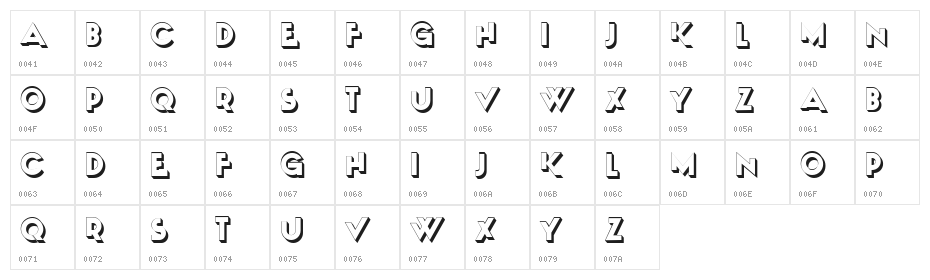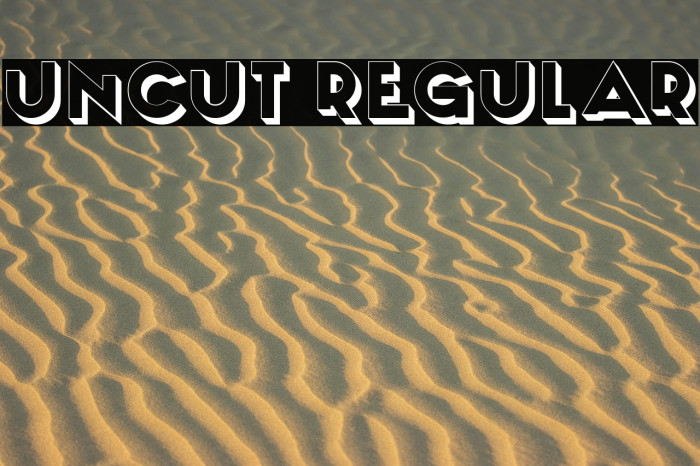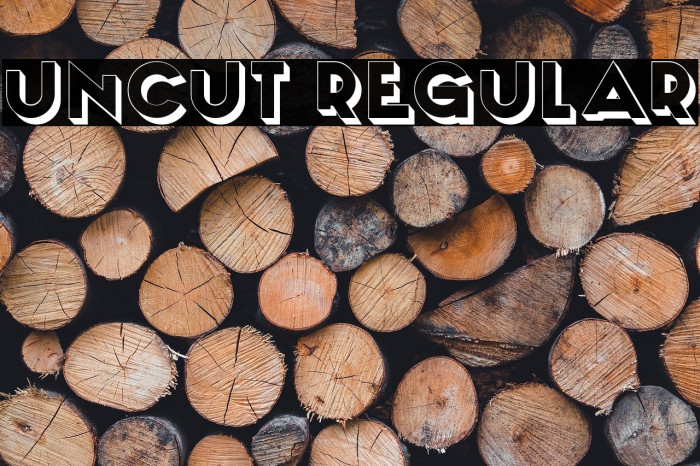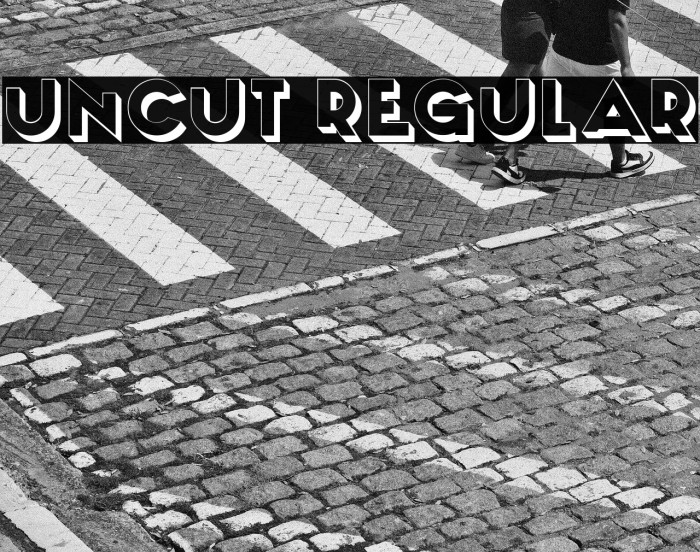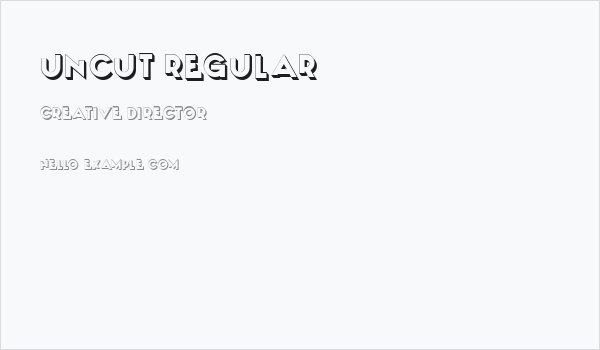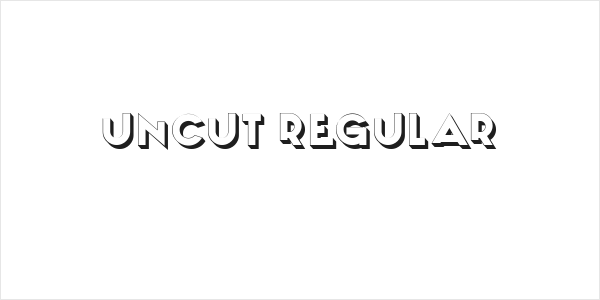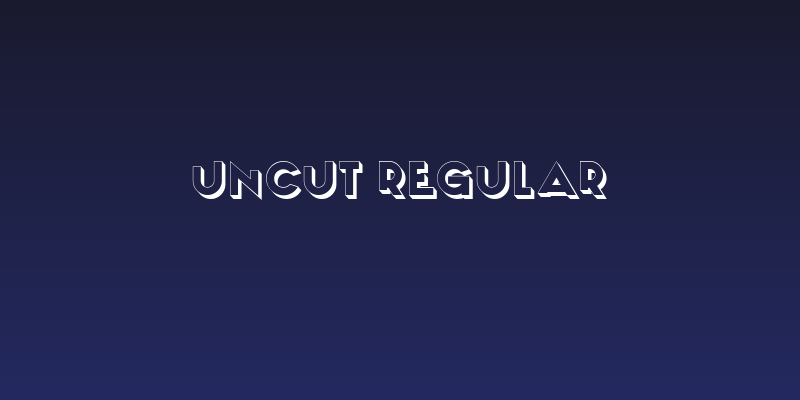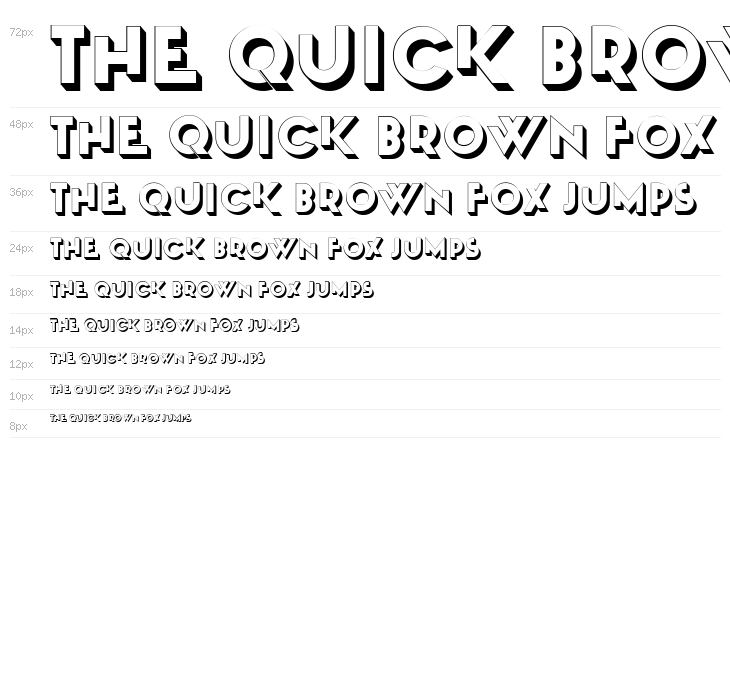
Uncut Regular Font
Uncut Regular Description
This font features a bold, three-dimensional design with a strong, shadowed effect that gives it a striking and impactful appearance. The characters are uppercase, with a geometric and blocky style that emphasizes their boldness. The shadowing adds depth and dimension, making each letter stand out prominently. The font is designed to capture attention and convey a sense of strength and modernity. Its clean lines and sharp angles contribute to a contemporary aesthetic, making it suitable for various design applications where a bold statement is needed.
| Proposed Projects | Ideal for headlines, posters, logos, and any design project requiring a bold and modern aesthetic. |